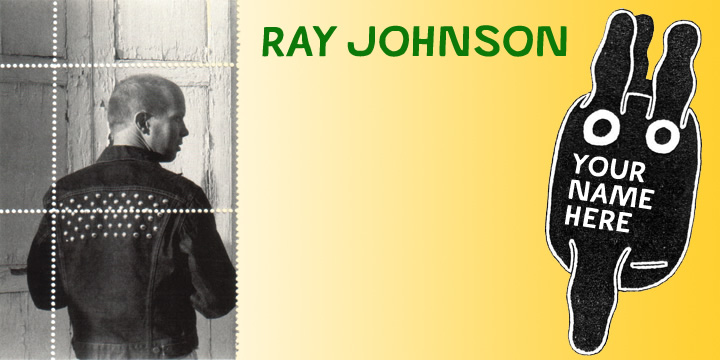
Ray Johnson Font Free Download offers designers an artistic typeface that embodies avant-garde expression and mail art sophistication with conceptual creativity. However, for commercial use, you must purchase this font. You can download it for free for testing purposes only.
Ray Johnson Font excels in contemporary design applications including experimental art galleries, conceptual art exhibitions, mail art projects, avant-garde performance venues, artistic correspondence materials, creative workshop signage, underground art movements, artistic zine publications, conceptual design studios, and innovative cultural campaigns. This revolutionary typeface brings mail art authenticity to cutting-edge artistic design projects.
What makes Ray Johnson Font truly exciting is its perfect embodiment of conceptual art philosophy with unconventional letterforms that challenge traditional typography through experimental artistic expression. The font features deliberately provocative characters with mail art aesthetics and conceptual proportions that reflect the revolutionary spirit of correspondence art and artistic networking. Its avant-garde personality and conceptual innovation make it ideal for brands embracing artistic rebellion, experimental communication, and audiences who appreciate conceptual art, mail art history, and the transformative power of artistic correspondence that connects creative minds across boundaries.
The Ray Johnson Font family typically includes Regular weight with potential experimental variations and mail art elements that enhance its conceptual character. These artistic options provide designers with complete avant-garde styling while maintaining the font's distinctive experimental elegance and revolutionary presentation across various conceptual applications and artistic contexts.
Whether you're developing experimental art branding, creating conceptual campaigns, or designing avant-garde marketing materials, Ray Johnson Font Free Download delivers the artistic authority and conceptual sophistication that experimental projects require. Its exceptional innovation and mail art appeal make it invaluable for designers working with contemporary art institutions, experimental venues, and avant-garde brands requiring typography that celebrates conceptual artistry, mail art tradition, and the revolutionary spirit of artists who use correspondence as creative medium to challenge conventional communication and create new forms of artistic expression that transcend traditional boundaries.